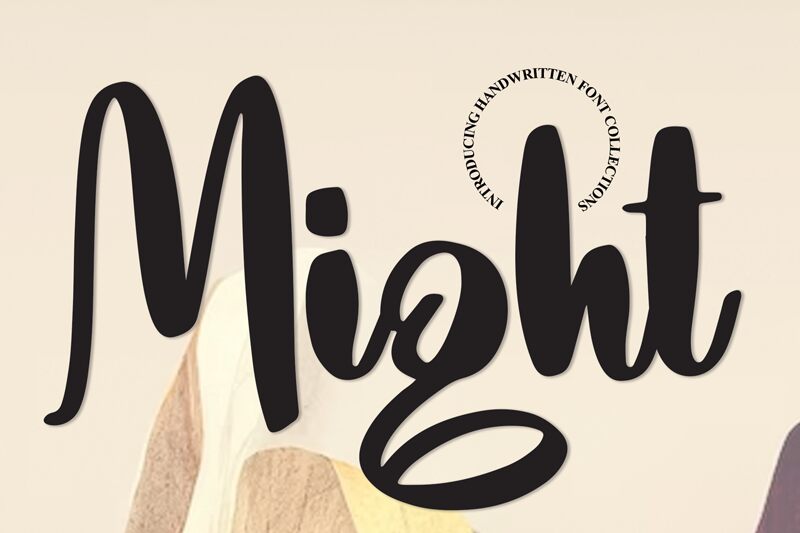
Might
The Mighty font radiates a raw, energetic essence that captivates the senses. Crafted with a distinct handwritten flair, this typeface boasts an irresistible charm, blending fluid strokes and playful curves to create a visually striking impression. Scratchones' meticulous attention to detail shines through, imbuing each letter with a unique personality that evokes a sense of authenticity and individuality.
Mighty's versatility makes it a versatile choice for a wide range of design applications, from eye-catching headlines and impactful branding to heartfelt greeting cards and personalized stationery. Its expressive nature lends itself seamlessly to projects that aim to convey a genuine, handcrafted aesthetic, adding a touch of warmth and character to any design.